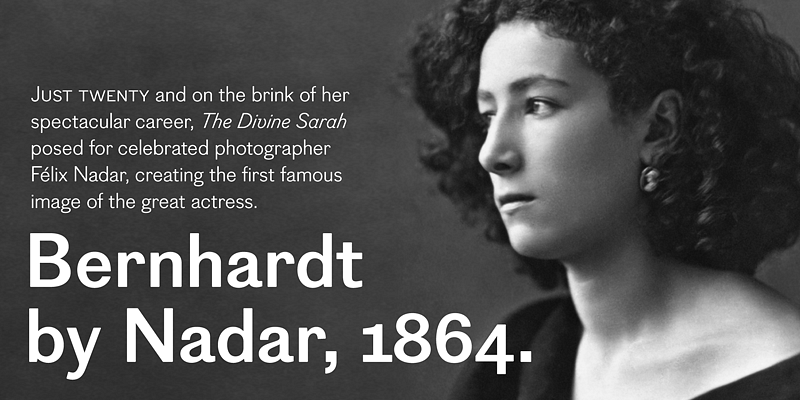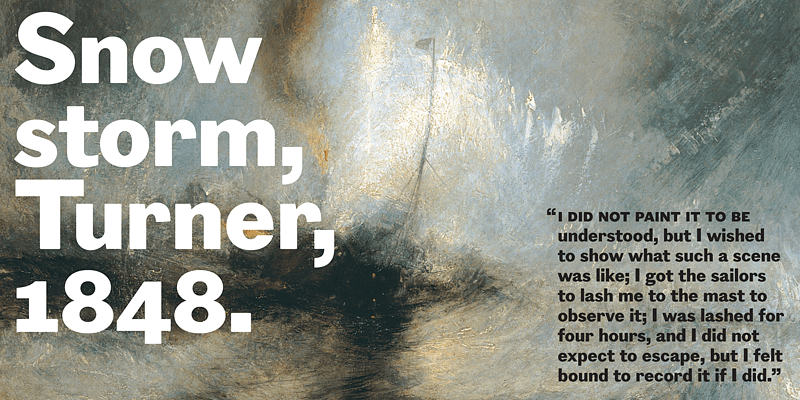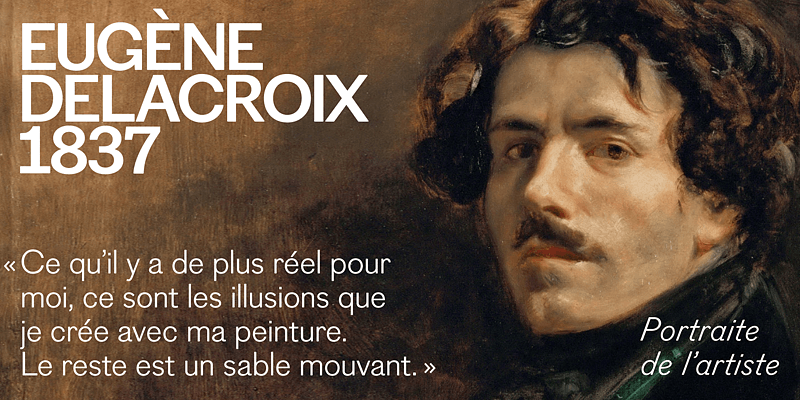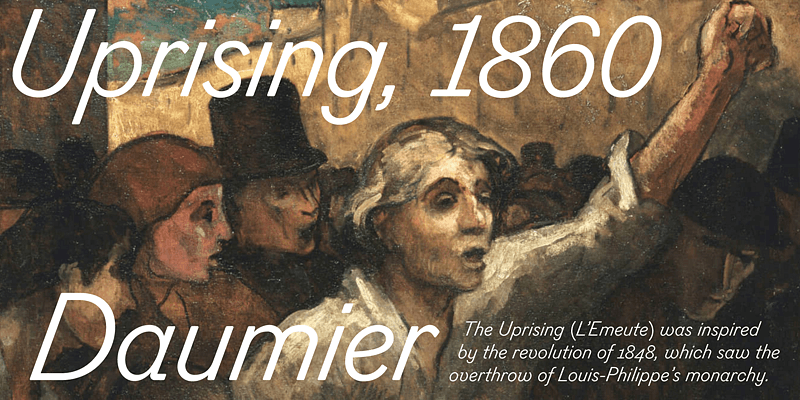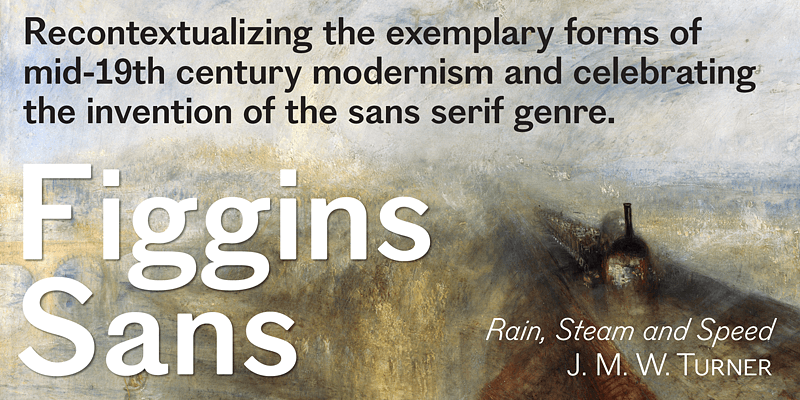
To meet the burgeoning demands of commerce, type founders in 1830s London introduced a plethora of new fonts which abandoned the traditional nib-informed model. Most radical were bold, capital-only designs with almost no stroke contrast, stripped bare of serifs. To all intents and purposes (except perhaps their allusion to primitive culture) these minimal expressions of utility were identical to 20th century functionalism. Recontextualizing one of the original sans fonts, Shinn offers an alternative proposition to the myth of modernism.